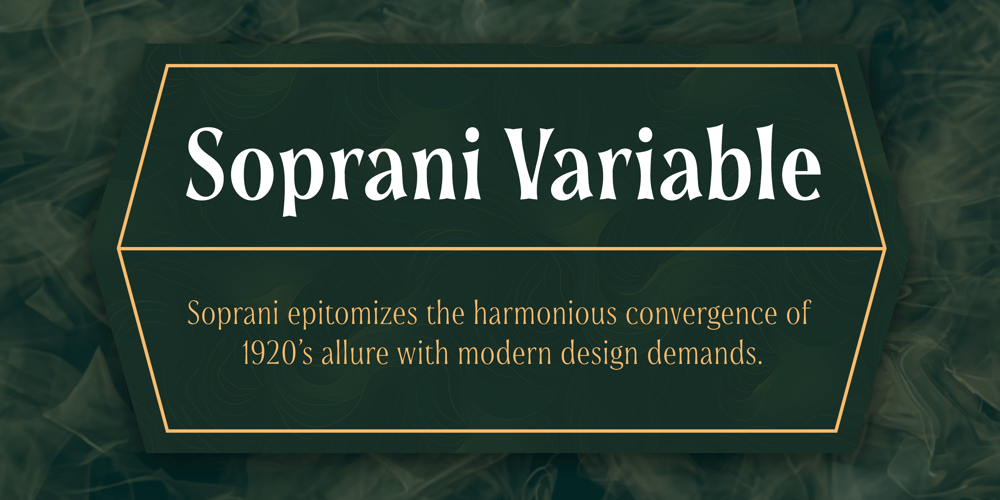
Soprani Variable Font Family was designed by Jeremy Dooley and published by insigne. Soprani Variable contains 2 styles and family package options. “Step into a world where the 1920s meet the future with Soprani—a typeface that seamlessly blends vintage charm and modern sophistication. Drawing inspiration from a distinctive plaque unearthed in New Zealand, Soprani showcases serifs that flare and shimmer, capturing the essence of art nouveau and arts & crafts in a contemporary light. Dive into its rich OpenType features, granting designers unparalleled flexibility to bring their visions to life. Its condensed yet elegant letterforms are the perfect fit for everything from artful table books and stylish menus to dynamic media showcases in TV and film. Spanning from the graceful subtlety of its thin variant to the undeniable boldness of the black, Soprani is diverse and dynamic. Soprani isn’t just a typeface—it’s a revolution in design.Production assistance by Lucas Azevedo and ikern.